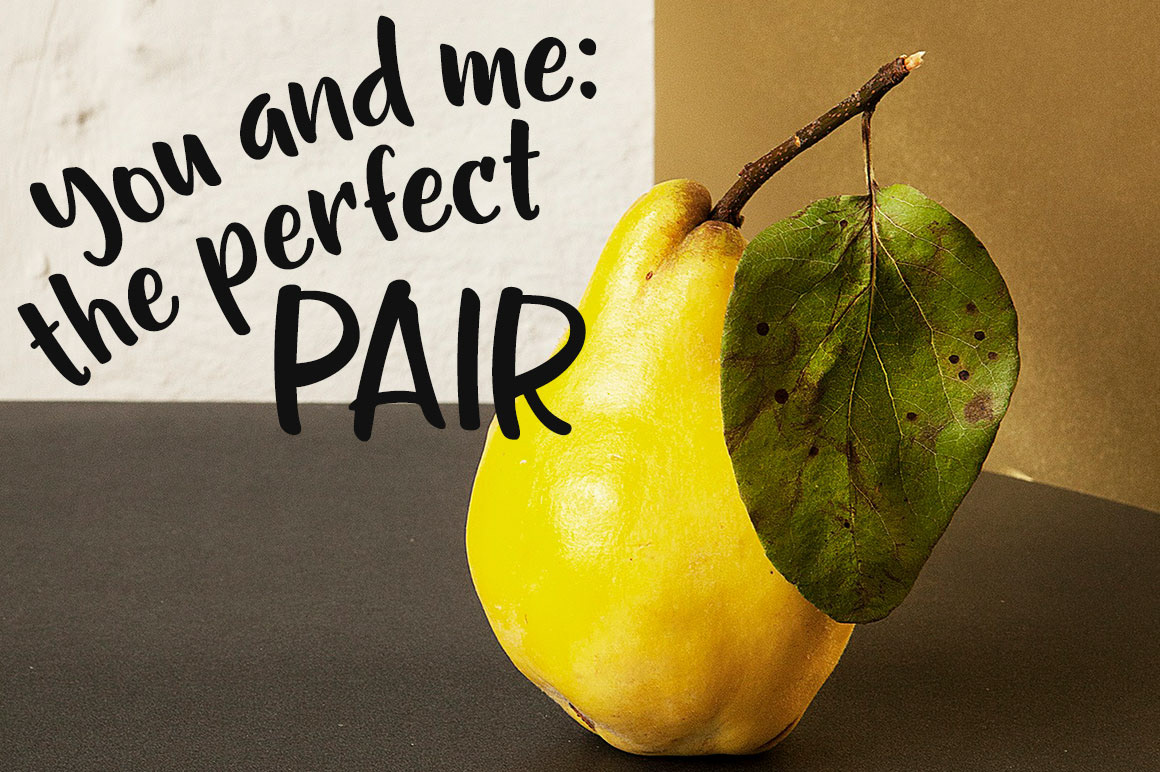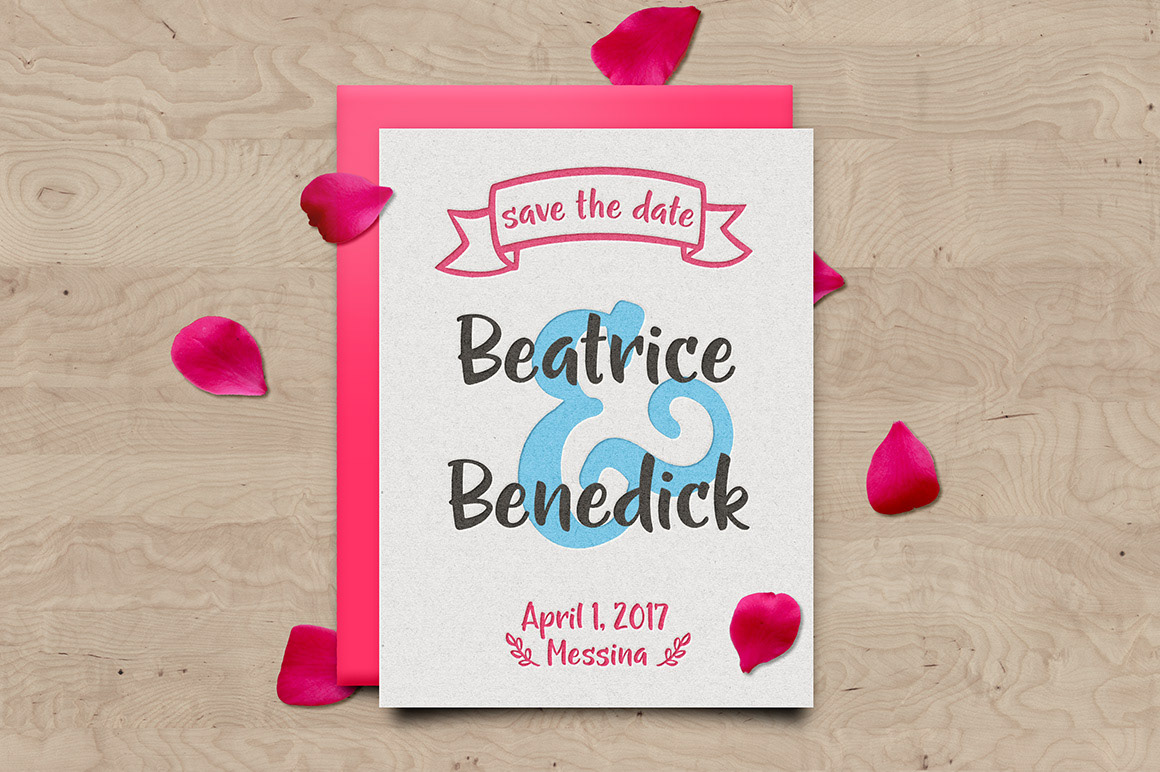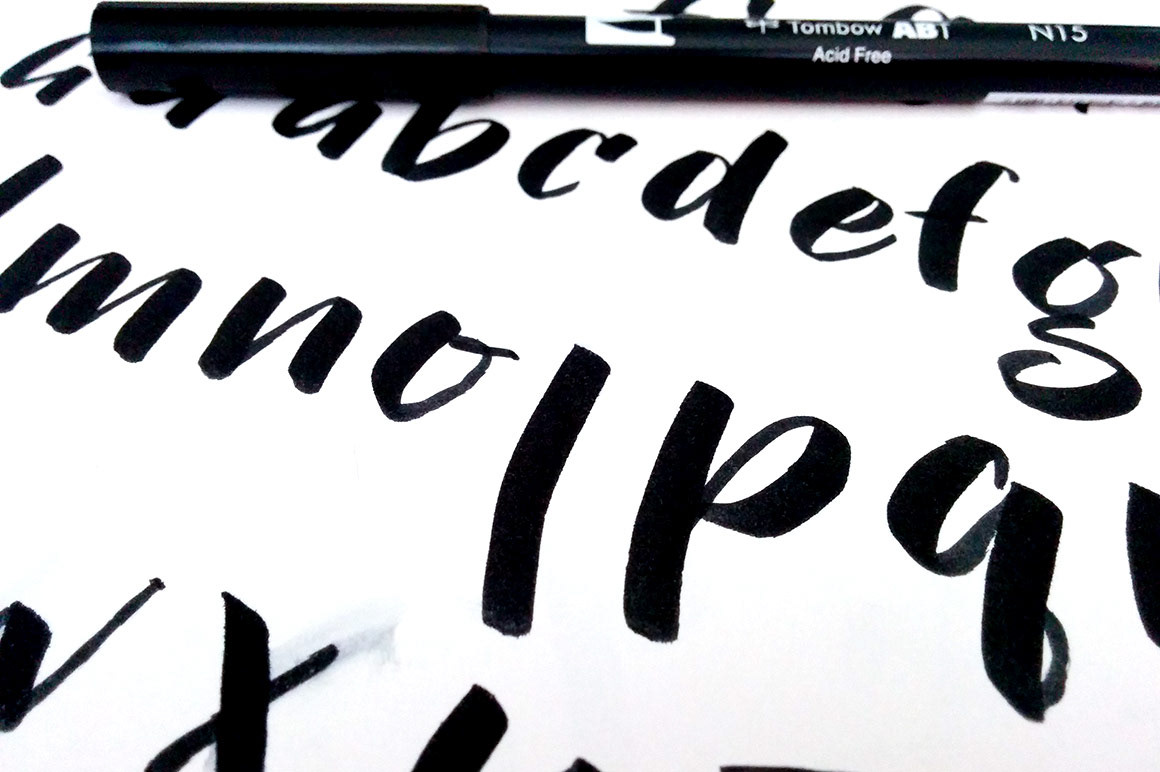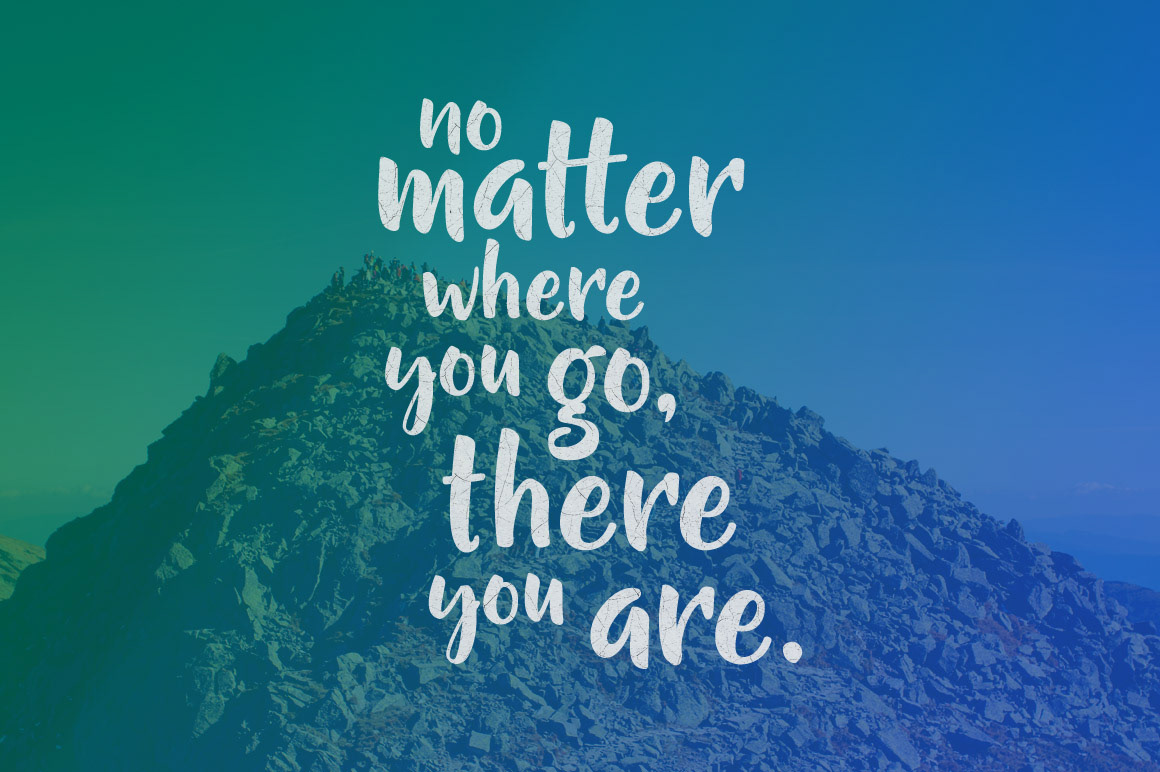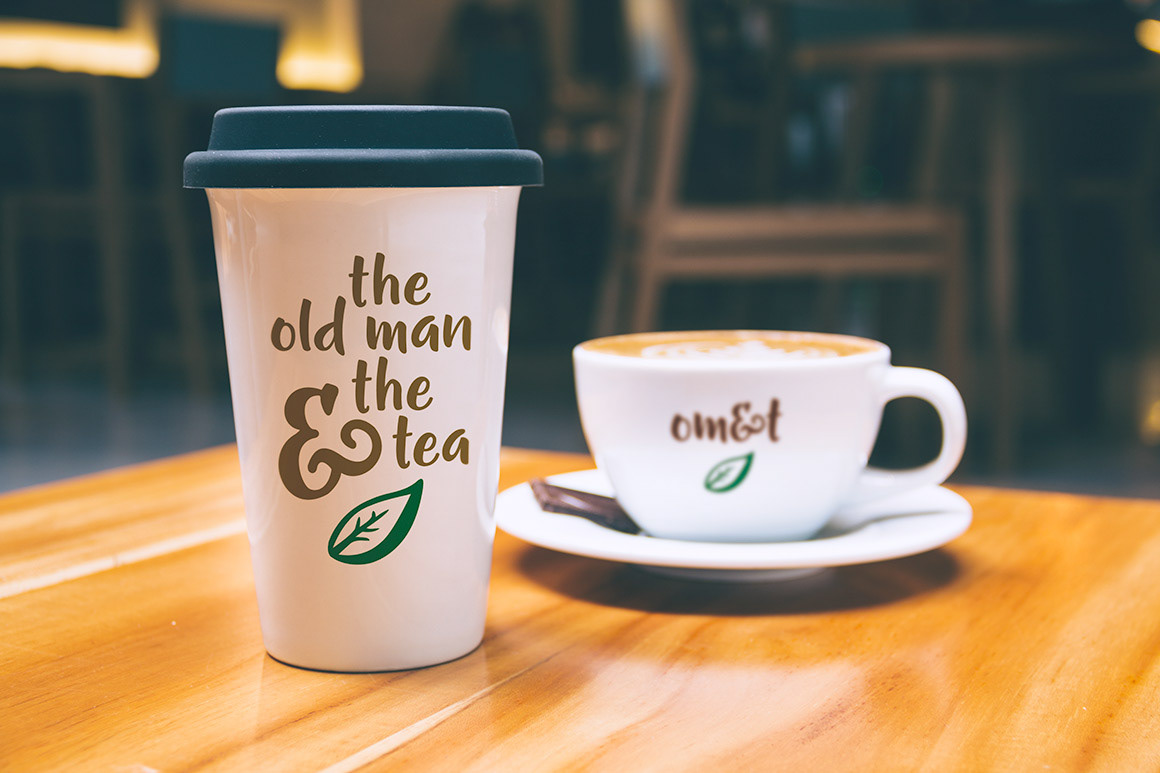
Looking for a hand-written look that isn't too froofy? Why not give Gumption a try?
Gumption was hand-crafted with paper and pen, then extensively cleaned up to have smooth curves and lines, while maintaining the flair of brush script handwriting.
Gumption features:
* 400 glyphs!
* Uppercase and lowercase double-letter ligatures for 15 letters: B, C, D, E, F, G, L, M, N, O, P, R, S, T, and Z!
* Over 200 accented characters to support: English, French, Spanish, German, Polish, Romanian, Portuguese, Swedish, Finnish, Norwegian, Danish, Esperanto, Czech, Dutch, Welsh, Filipino, Turkish, and more!
* 25 assorted dingbats in the same hand!
* All alternates and dingbats PUA-encoded for easy character map access!